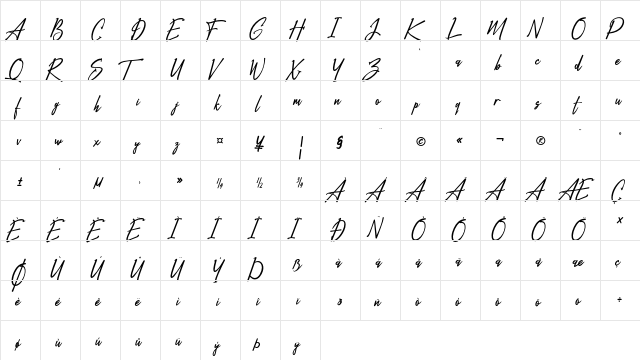
Stoneberg Regular
| Designer | inst.ink!type |
Design Context for Stoneberg Typeface
Stoneberg is a composed and adaptable typeface that performs quietly and consistently across a wide range of design contexts.